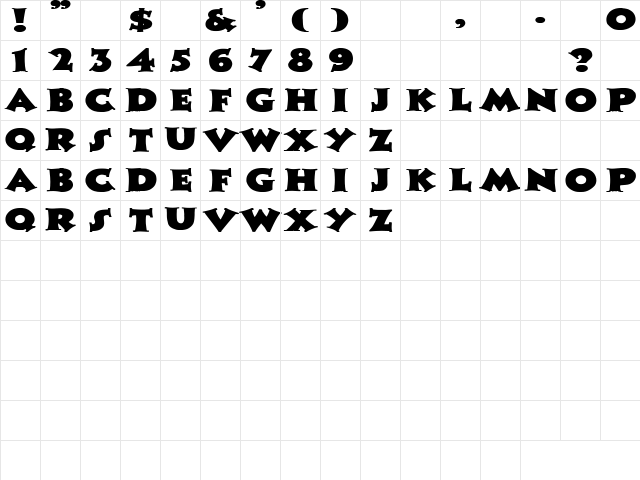
Mr. Niceguy 2 Bold Font Preview
Mr. Niceguy 2 Bold
Design Context for Mr. Niceguy 2 Typeface
Mr. Niceguy 2 is a composed and adaptable typeface that performs quietly and consistently across a wide range of design contexts. The heavy weight commands attention and anchors typographic hierarchies.